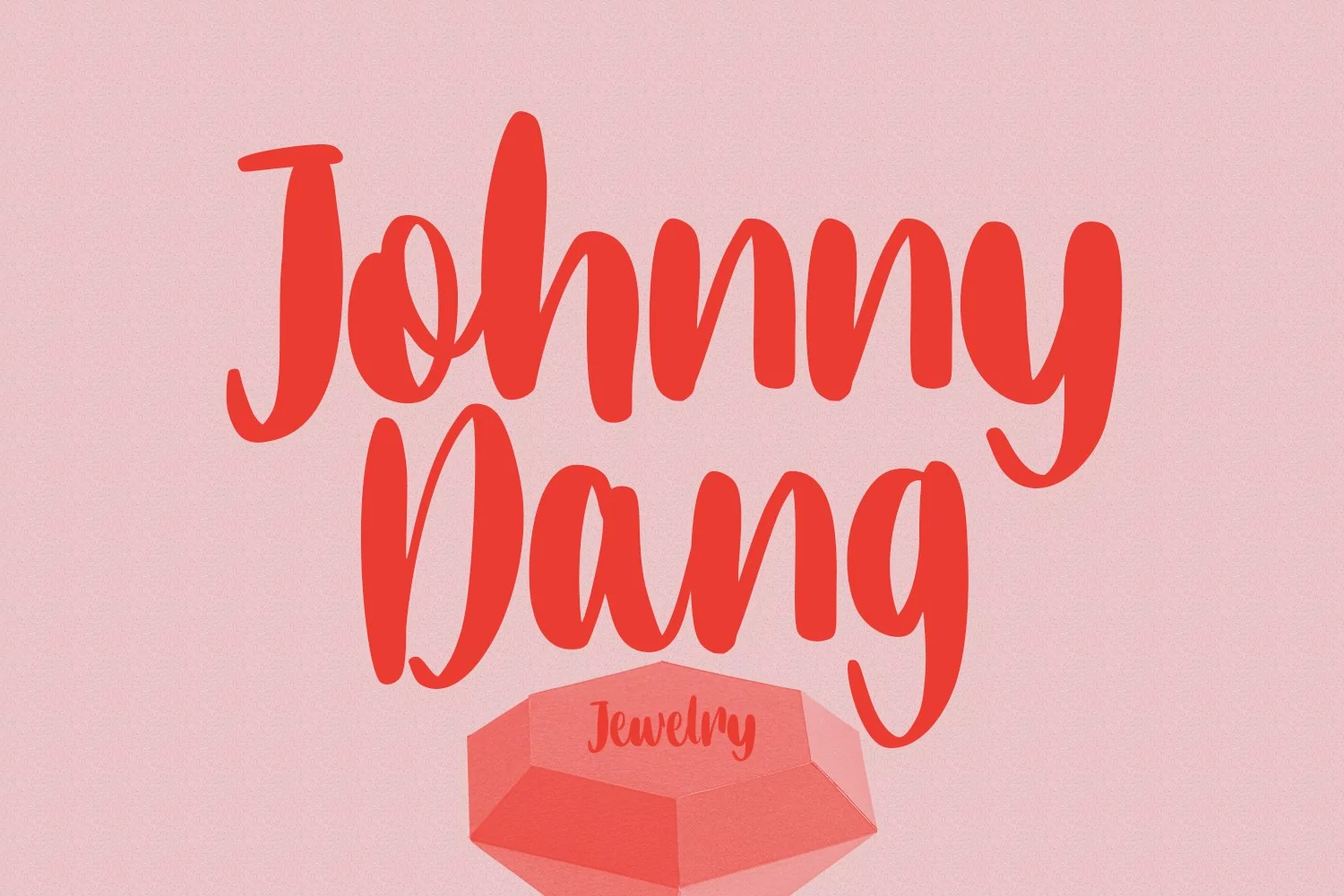
Baldorty is a fancy handwritten script font. With medium contrast stroke, fun character with a bit of ligatures and alternates. To give you an extra creative work. Baldorty font support multilingual more than 100+ language. This font is good for logo design, Social media, Movie Titles, Books Titles, a short text even a long text letter and good for your secondary text font with sans or serif. Make a stunning work with Baldorty font.